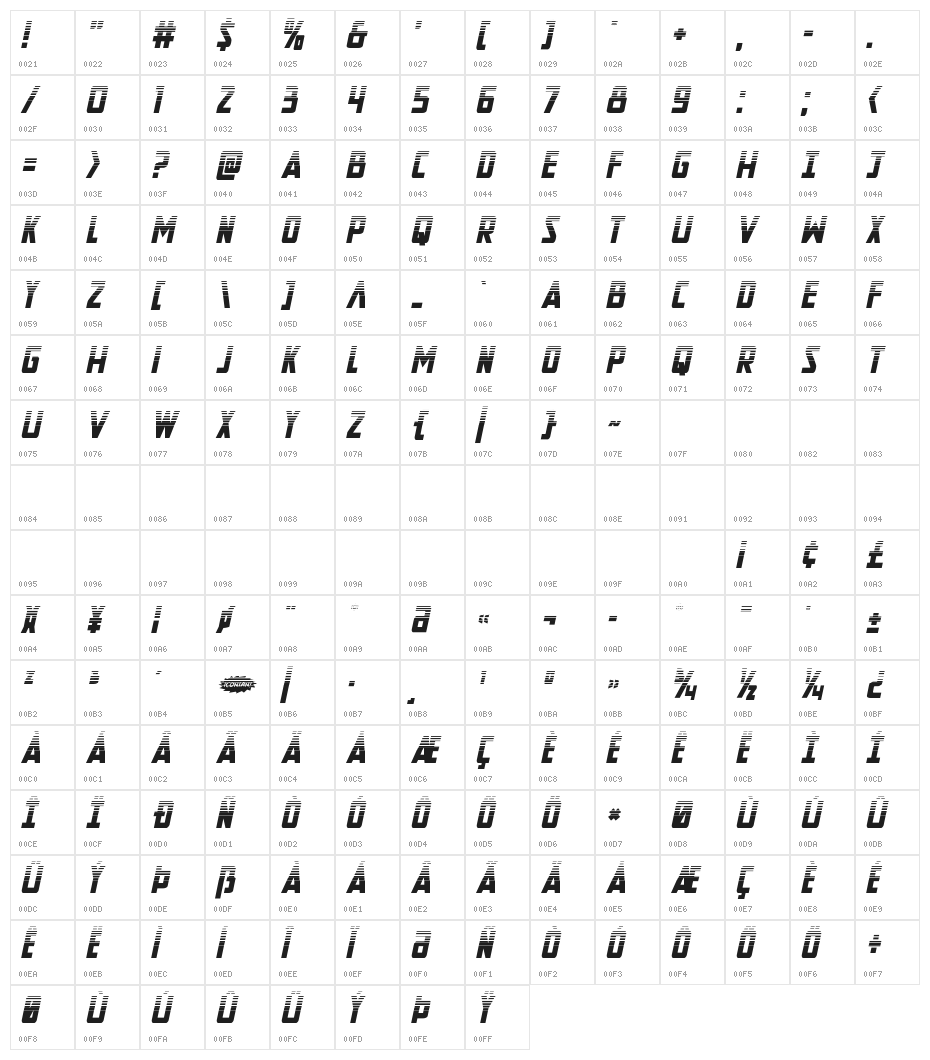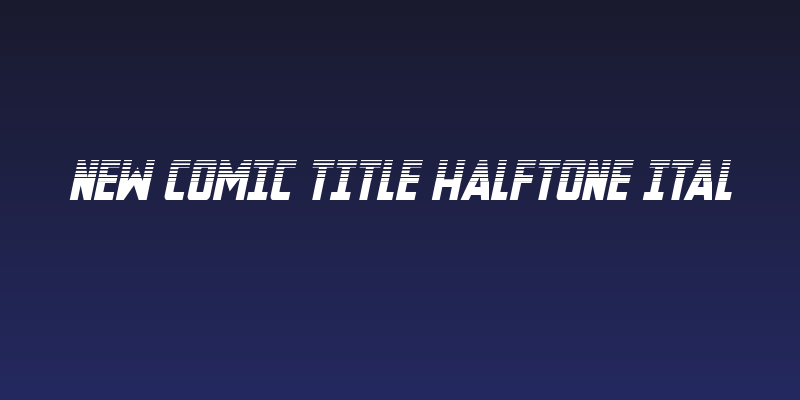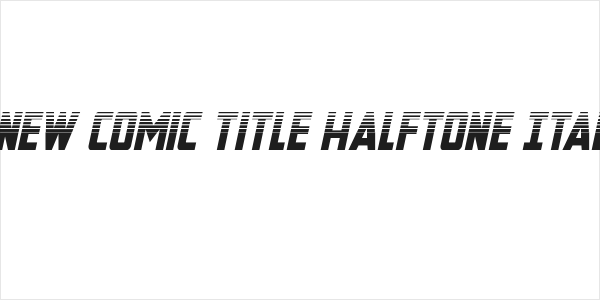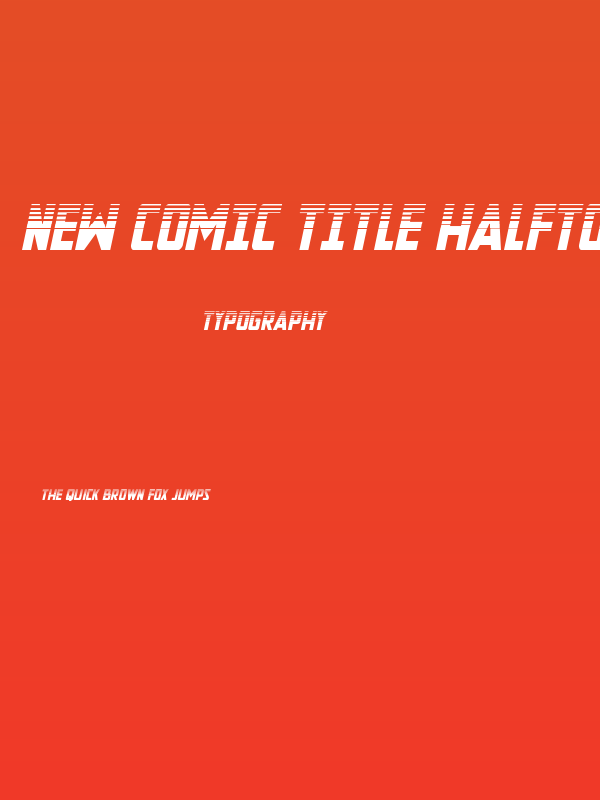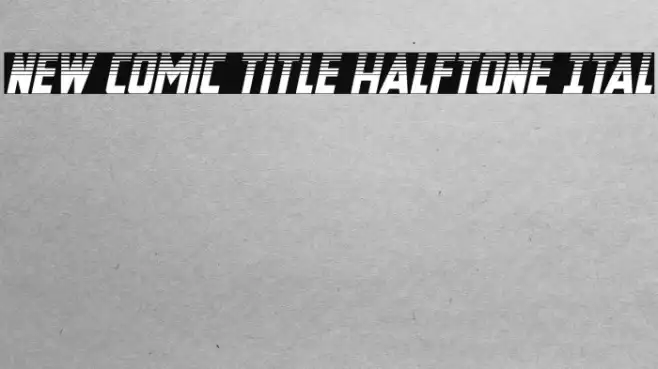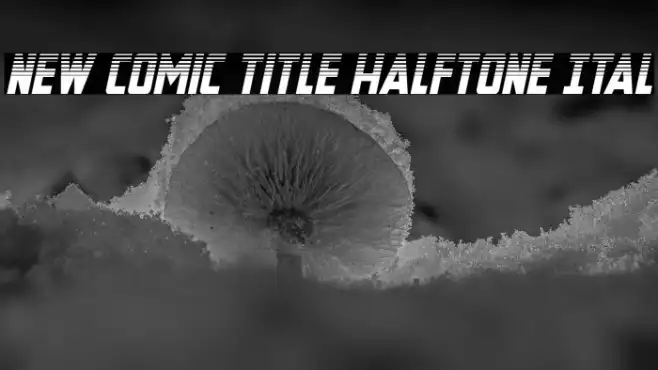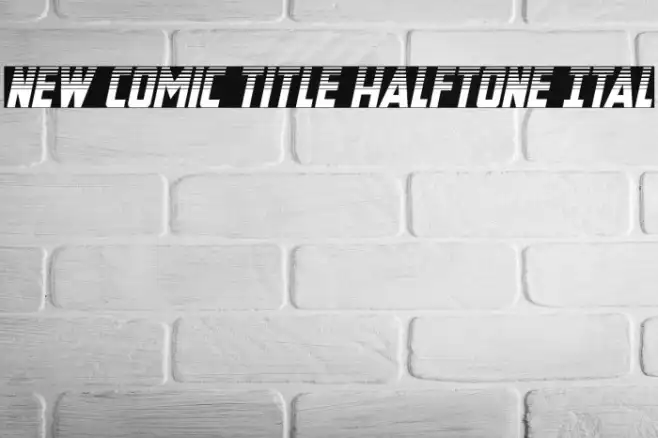
New Comic Title Halftone Ital Font
New Comic Title Halftone Ital Description
This font features a bold, dynamic style with a halftone effect that gives it a unique, energetic appearance. The uppercase and lowercase letters are designed with a slanted, italicized form, adding a sense of motion and speed. The characters are bold and impactful, making them ideal for attention-grabbing headlines. The halftone pattern is consistent across all characters, providing a cohesive look. The numbers and special characters maintain the same stylistic elements, ensuring uniformity throughout. This font is perfect for projects that require a modern, edgy aesthetic.
NEW-COMIC-TITLE-HALFTONE-ITAL UPPERCASE
NEW-COMIC-TITLE-HALFTONE-ITAL LOWERCASE
NEW-COMIC-TITLE-HALFTONE-ITAL OTHER CHARS
| Proposed Projects | Comic book titles, posters, video game graphics, and branding materials. |